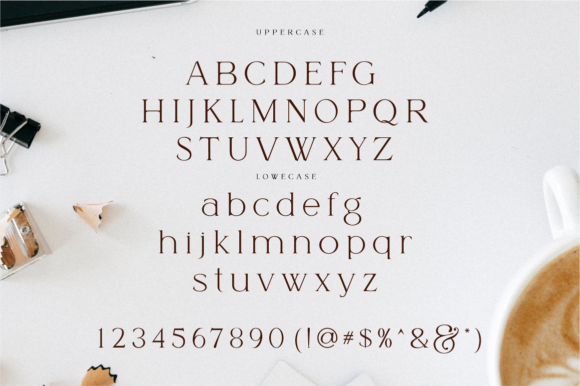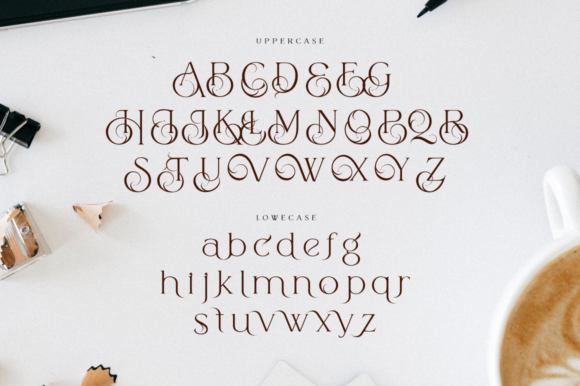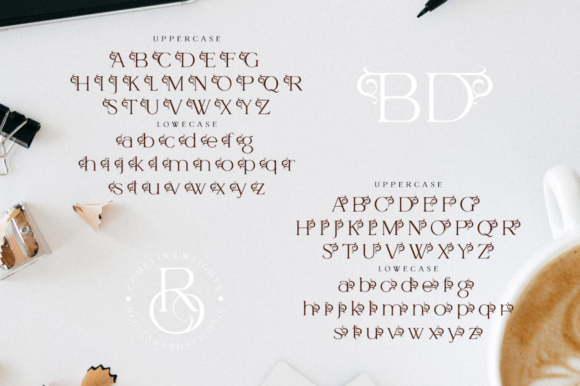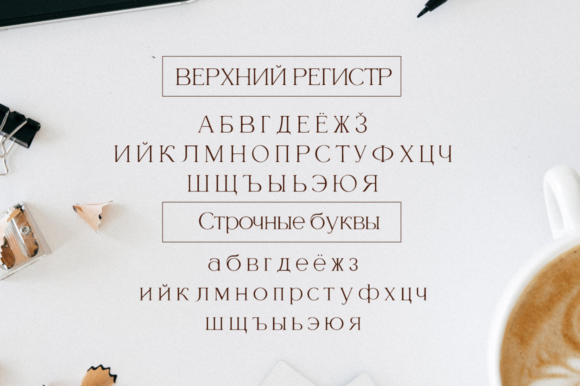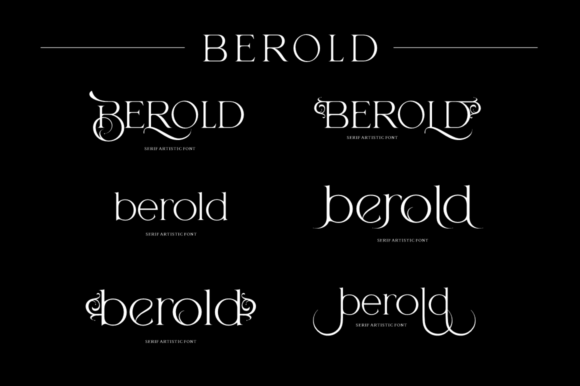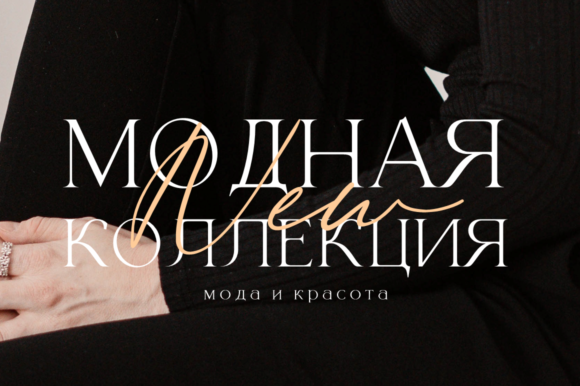
Introduction to Berold Font
Berold is an elegant and imposing serif font.
Simple but with a strong visual effect, this font will instantly make your creation more appealing than any others .
Key Features of Berold Font